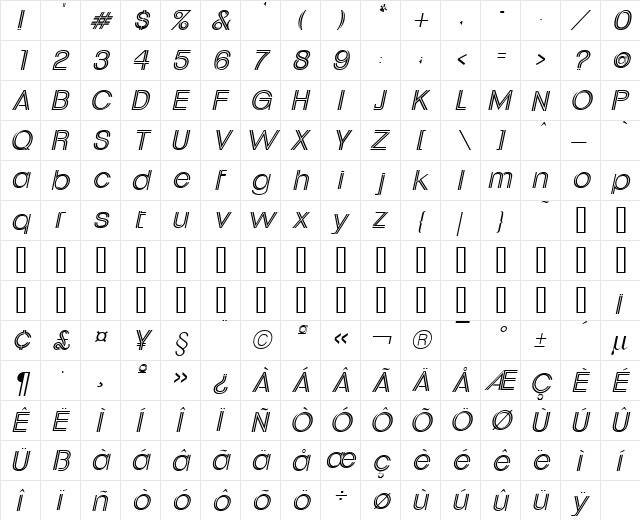
Downtown Italic
Design Context for Downtown Typeface
Downtown is a composed and adaptable typeface that performs quietly and consistently across a wide range of design contexts. The slanted form adds forward momentum and visual energy.
Pro Tip: Try Downtown for annotation and caption copy alongside an upright companion — the contrast in angle creates a dynamic but ordered typographic system.